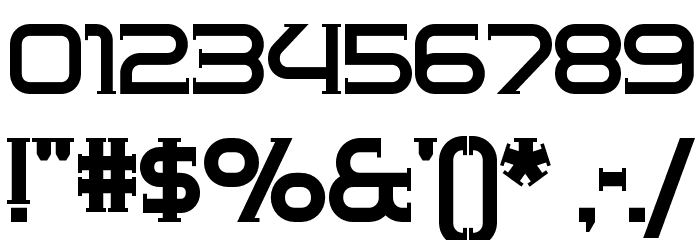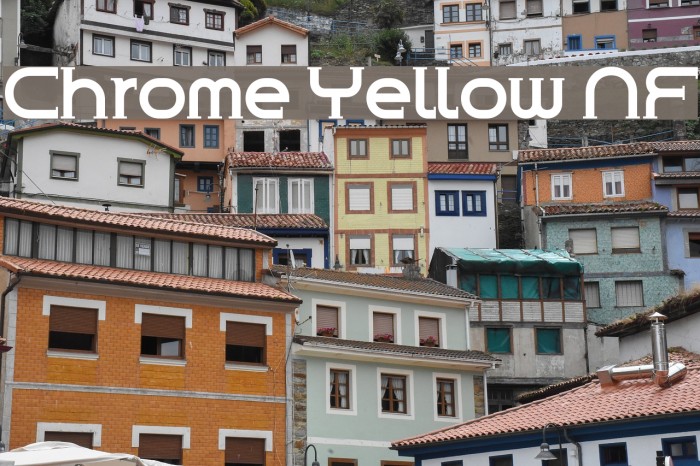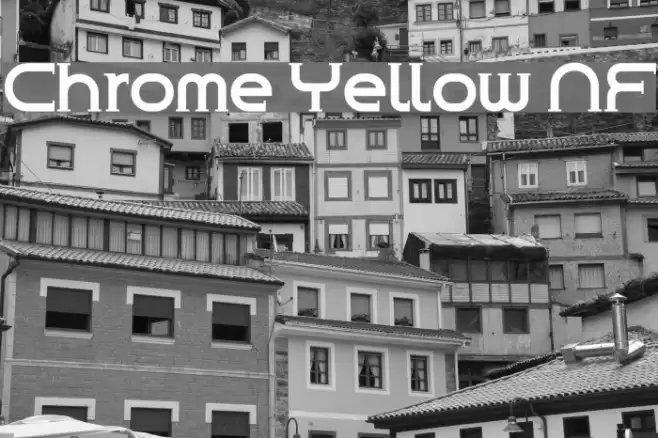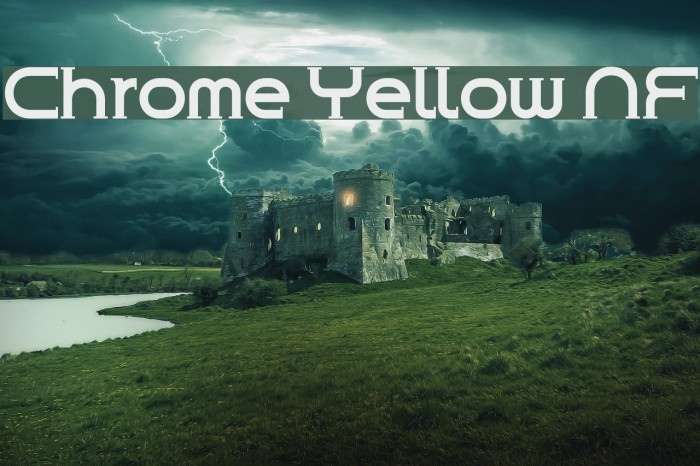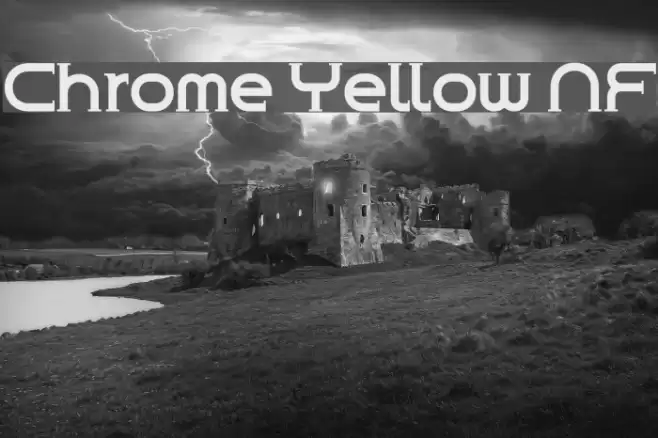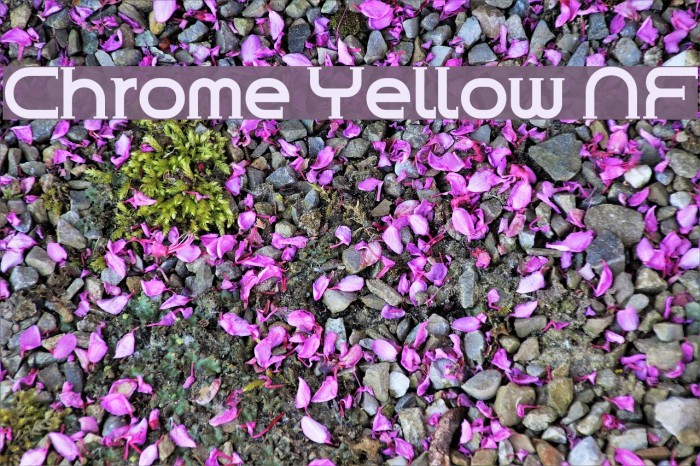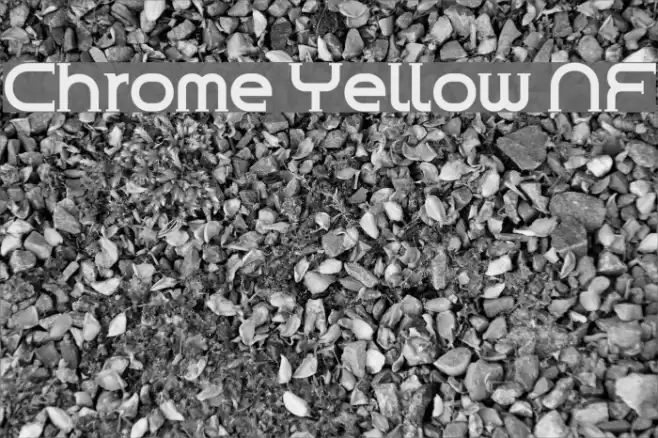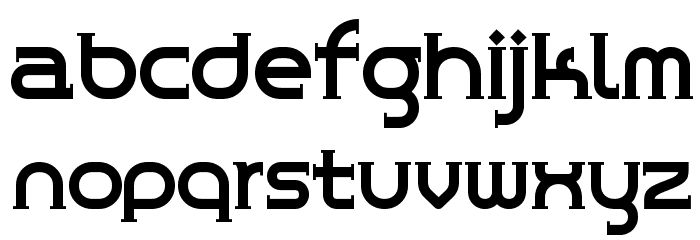
Chrome Yellow NF Font
Chrome Yellow NF Description
This font features a unique blend of modern and retro elements, characterized by its geometric and slightly condensed letterforms. The uppercase letters are bold and structured, with distinct angular cuts and rounded edges that give it a futuristic feel. The lowercase letters maintain a consistent style, with a smooth flow and balanced proportions. The numerals are equally bold, with a uniform width that complements the overall design. Special characters are creatively designed, adding a playful yet sophisticated touch. This font's distinct style makes it stand out, offering versatility for various design projects.
| Proposed Projects | Ideal for branding, posters, headlines, and any project seeking a modern yet retro aesthetic. |